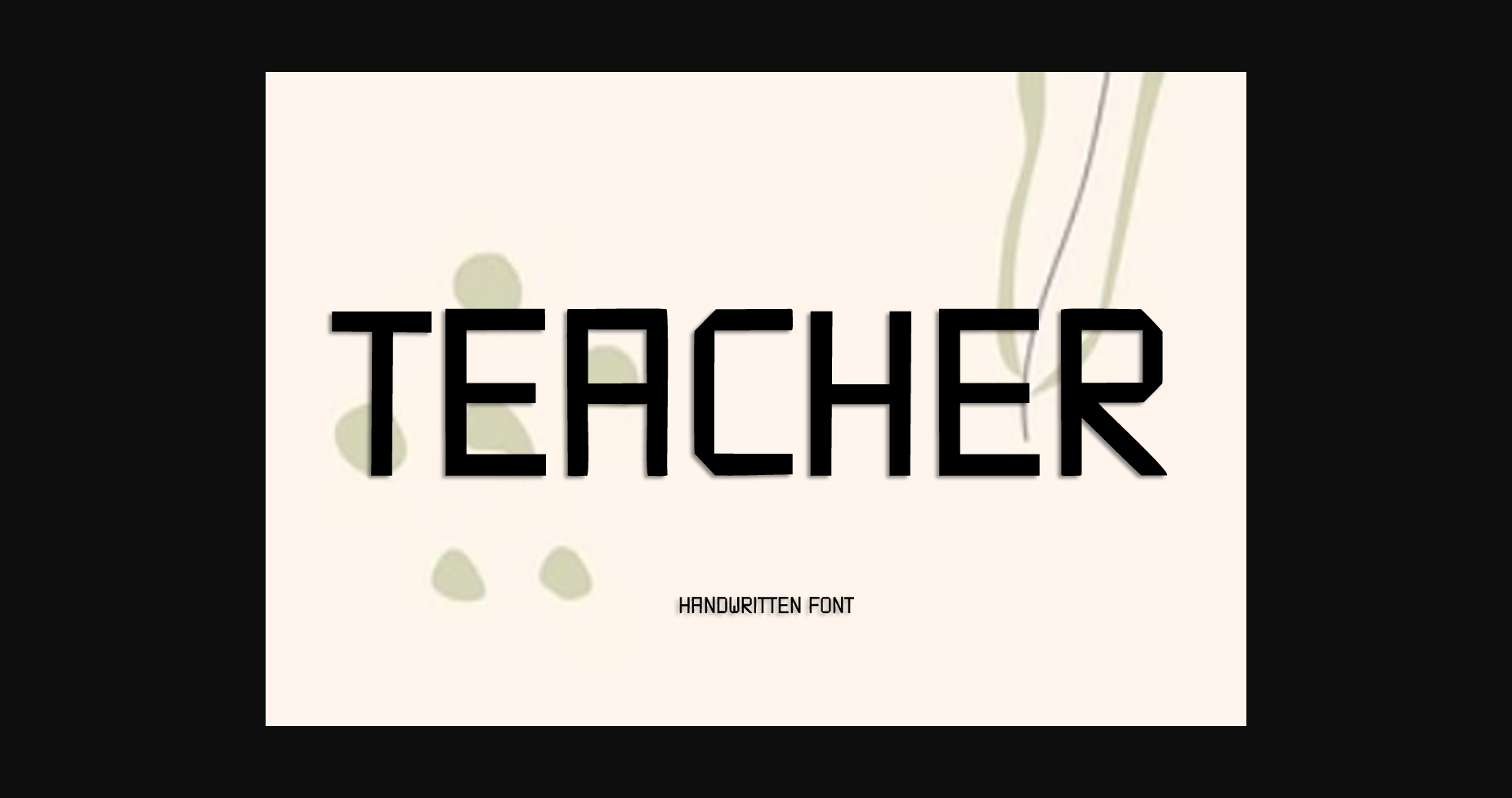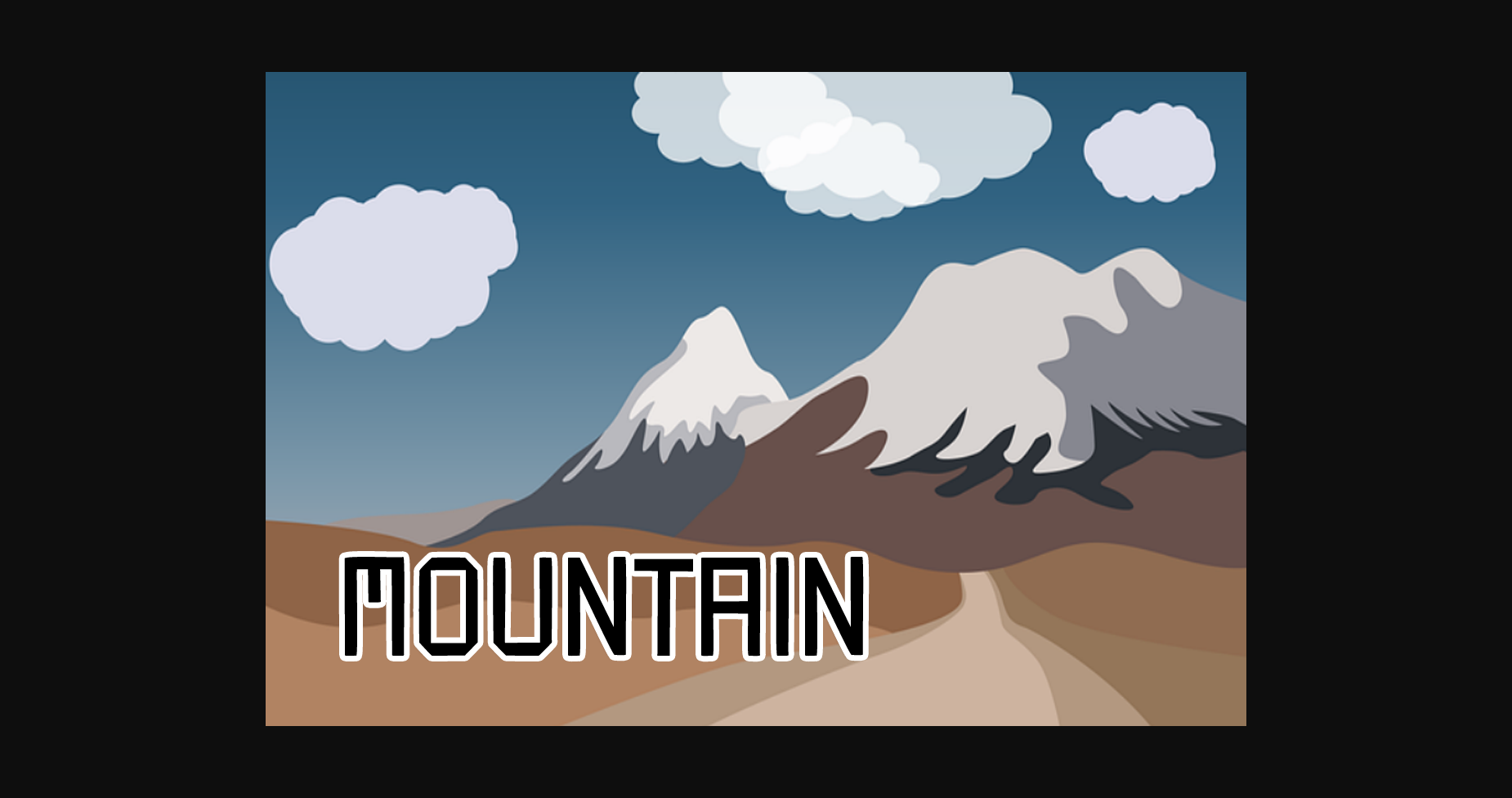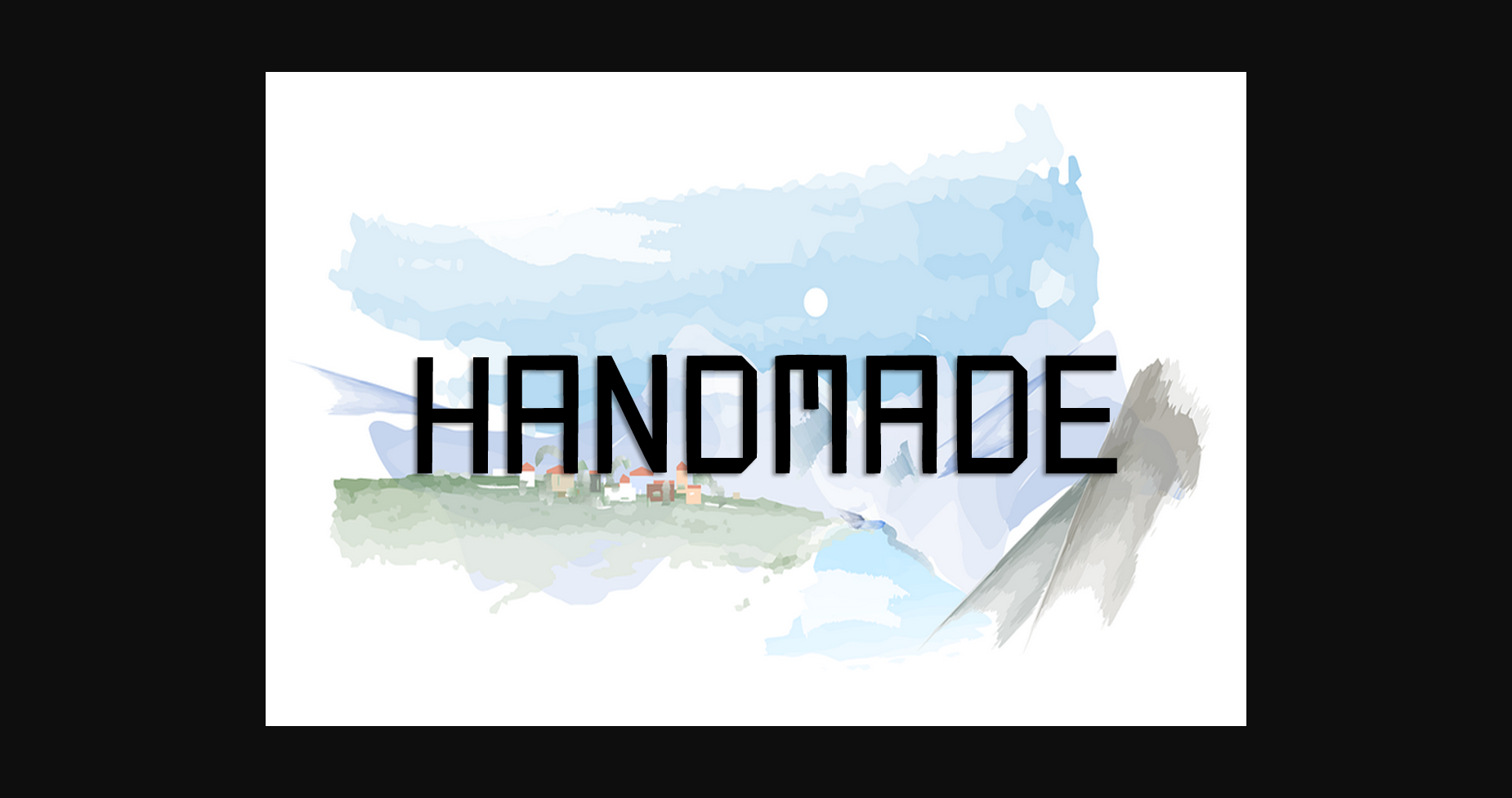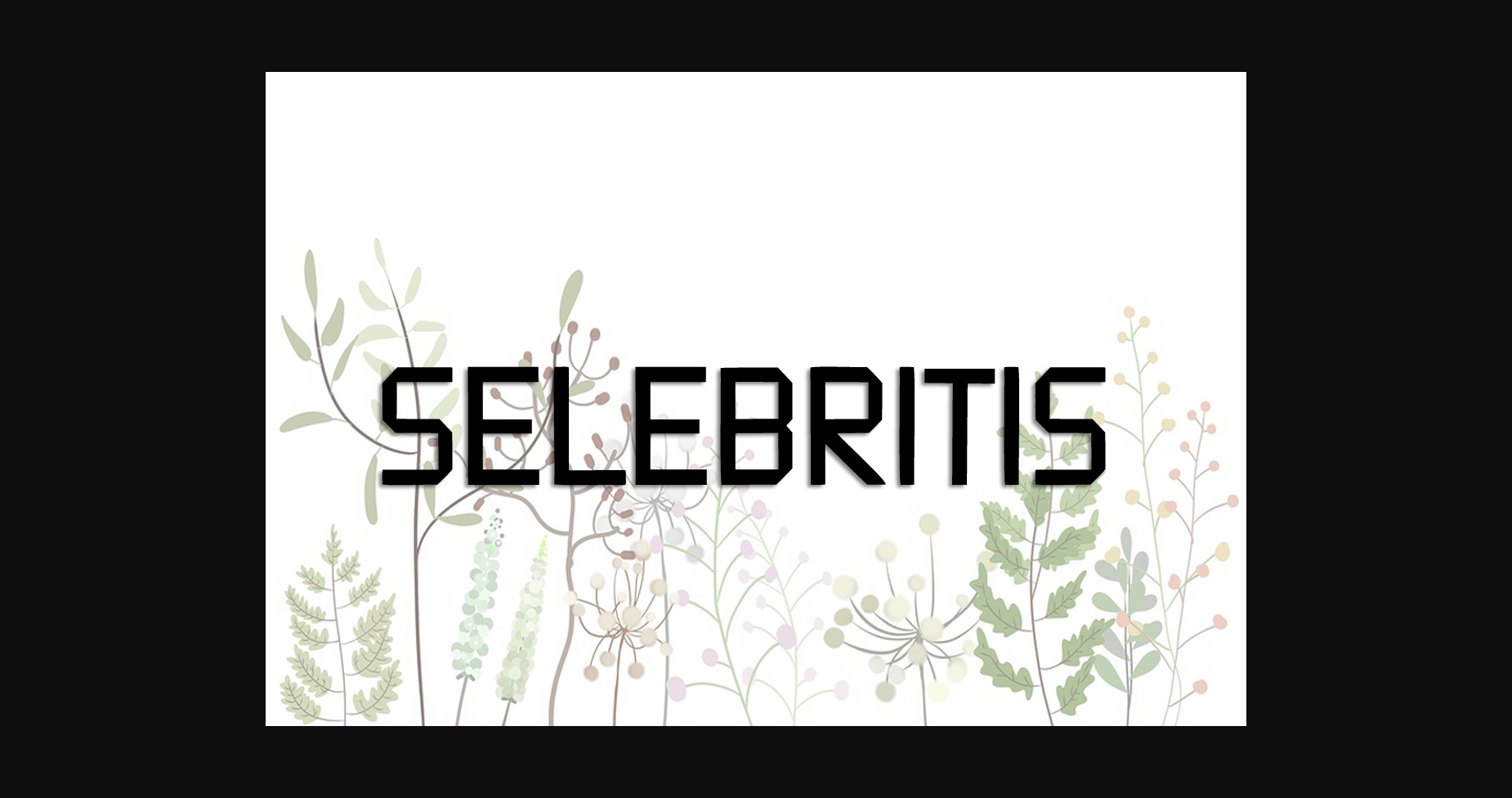
About Teacher Font
Teacher is an elegant and high-quality Sans Serif font, perfect for your favorite projects. Fall in love with its incredibly distinct and timeless style, and use it to create spectacular designs!